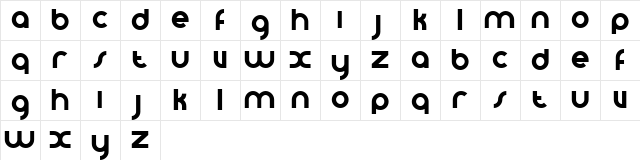
VomZom VomZom Font Preview
VomZom VomZom
VomZom VomZom Font Details
| Style | VomZom |
| Foundry | defaulterror |
| Designer | Derek Clark |
Design Context for VomZom Typeface
VomZom offers clean, dependable letterforms without strong stylistic allegiance, making it a practical choice for designers who need flexibility.